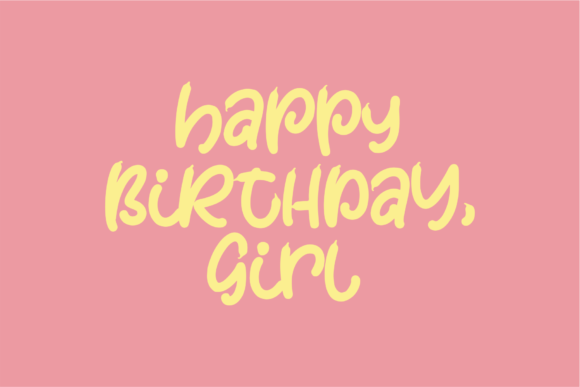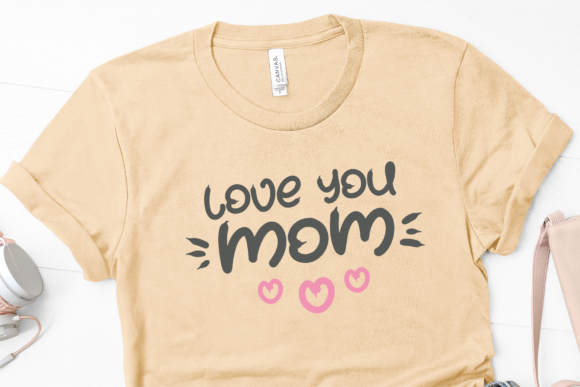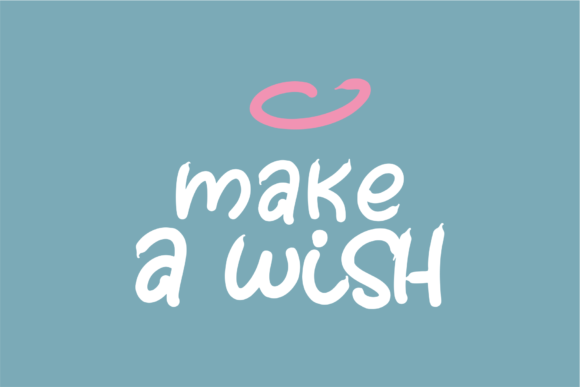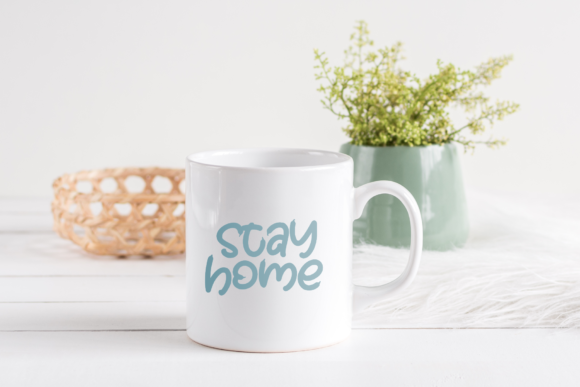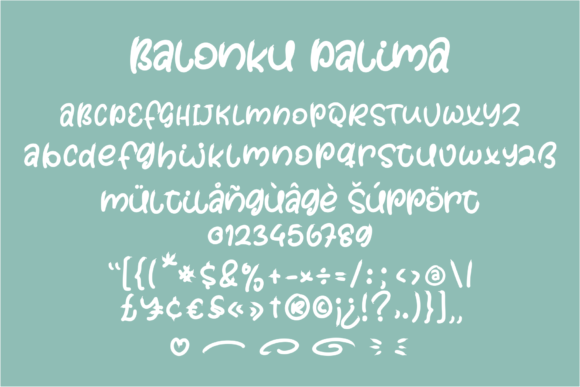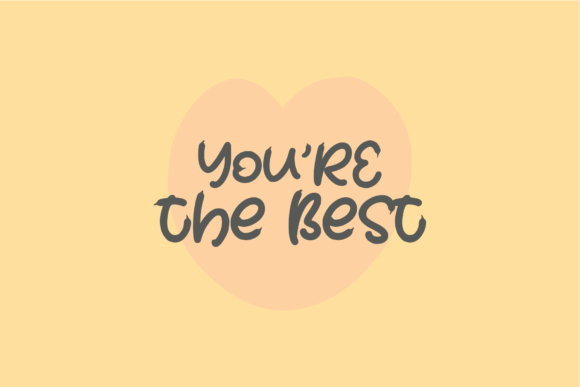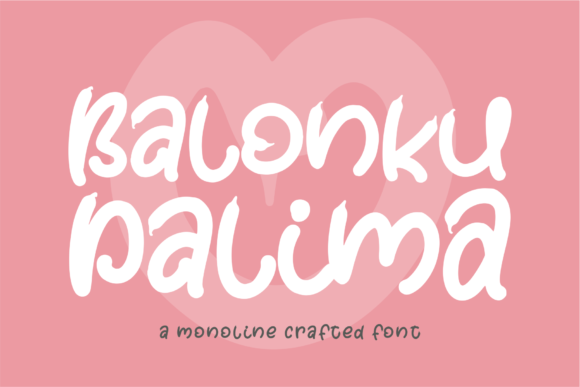
Discover the Charm of Balonku Dalima Font: A Cute Display Font for Your Creative Projects
Are you on the hunt for a font that adds a touch of casual charm to your designs? Look no further than Balonku Dalima, a delightful display font that’s perfect for a wide range of creative projects. With its down-to-earth feel, readability, and versatility, Balonku Dalima is sure to become a favorite in your font collection.
The Characteristics of Balonku Dalima
So, what makes Balonku Dalima so special? For starters, its casual charm is unmistakable. This font has a friendly, approachable quality that makes it perfect for designs that need a personal touch. Whether you’re creating a logo, a headline, or a social media graphic, Balonku Dalima’s laid-back vibe is sure to shine through.
But Balonku Dalima isn’t just a pretty face – it’s also incredibly readable. Even at smaller sizes, this font remains clear and easy to read, making it perfect for use on busy backgrounds or in situations where text needs to take center stage.
The Versatility of Balonku Dalima
One of the things that really sets Balonku Dalima apart is its versatility. This font can be used in a wide range of contexts, from digital designs to print materials. Need a font for a blog post or social media graphic? Balonku Dalima is a great choice. Want to add some personality to a flyer or brochure? This font has got you covered.
And it’s not just limited to text – Balonku Dalima can also be used as a decorative element in its own right. Imagine using it as a title font for a children’s book, or as a header for a craft tutorial. The possibilities are endless!
Using Balonku Dalima in Your Designs
So, how can you start using Balonku Dalima in your designs? Here are a few ideas to get you started:
• Pair it with bold colors: Balonku Dalima looks amazing with bright, bold colors. Try pairing it with a vibrant background or accent color to really make your design pop.
• Use it as a headline: With its clear, easy-to-read design, Balonku Dalima makes a great headline font. Try using it to add some personality to your blog posts or social media graphics.
• Mix it with other fonts: Balonku Dalima also plays nicely with other fonts. Try pairing it with a clean sans-serif font for a contrasting look that’s both interesting and easy to read.
Why Designers and Crafters Love Balonku Dalima
So, why do designers and crafters love Balonku Dalima? For one thing, it’s just so easy to use. With its clear design and versatile personality, this font is perfect for a wide range of creative projects.
But it’s not just about ease of use – Balonku Dalima also adds a touch of whimsy and personality to any design. Whether you’re creating a logo, a social media graphic, or a craft tutorial, this font is sure to bring a smile to your face.
Font Name Balonku Dalima Font
Author Azetype
In conclusion, Balonku Dalima is a truly special font that’s perfect for designers and crafters looking to add a touch of casual charm to their creations. With its readability, versatility, and down-to-earth personality, this font is sure to become a favorite in your font collection.